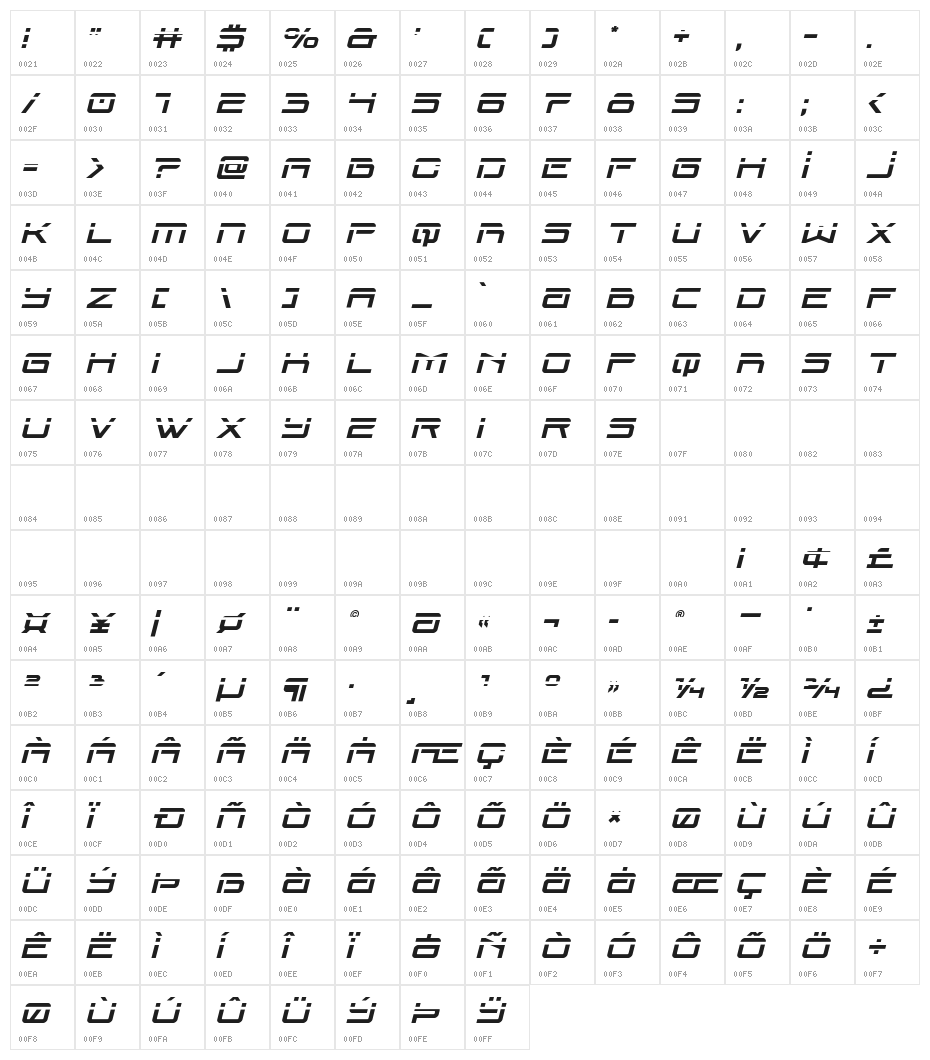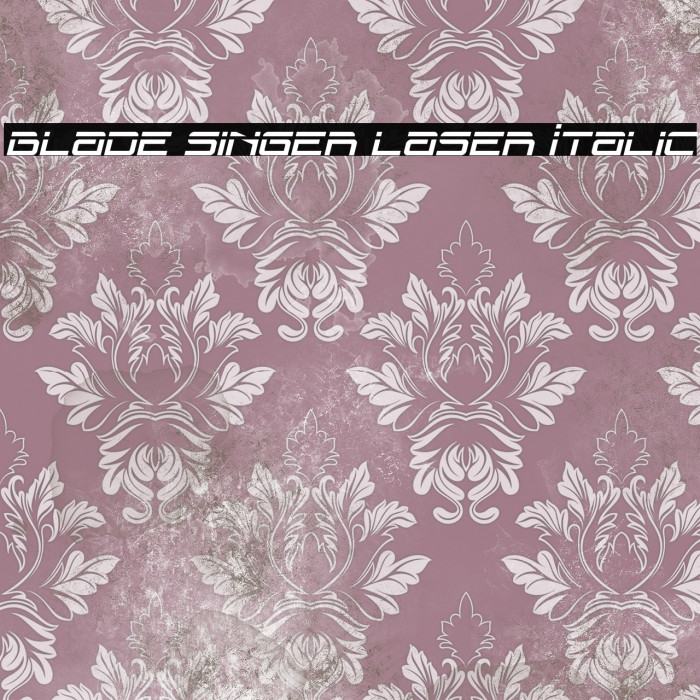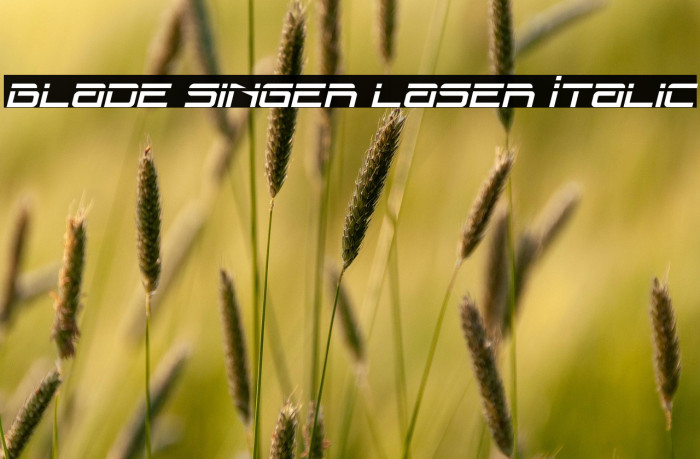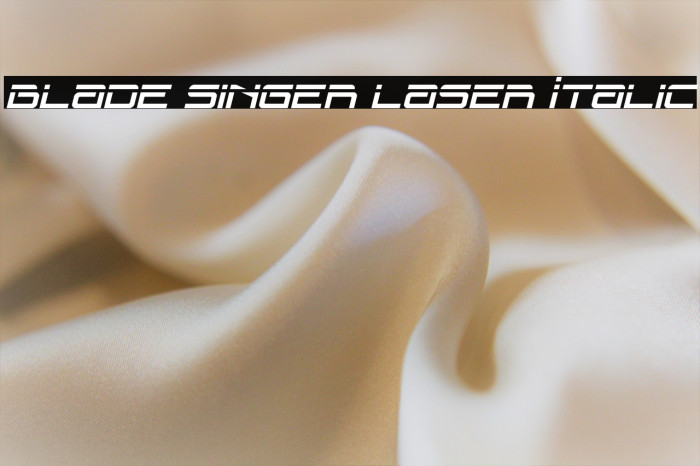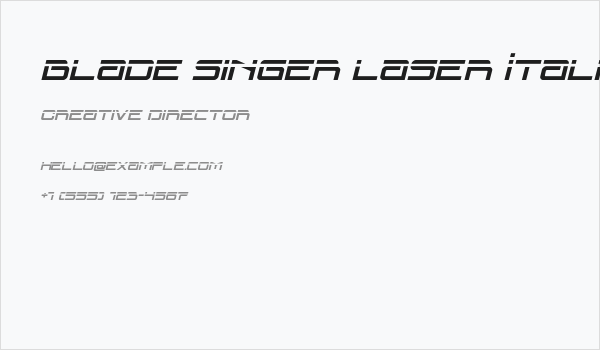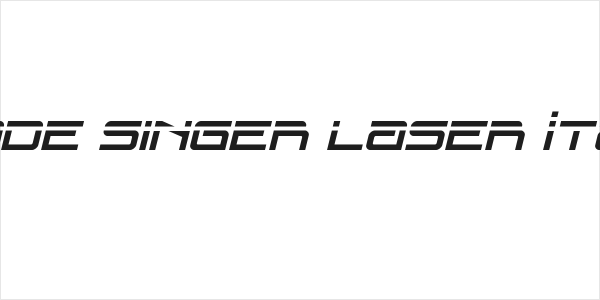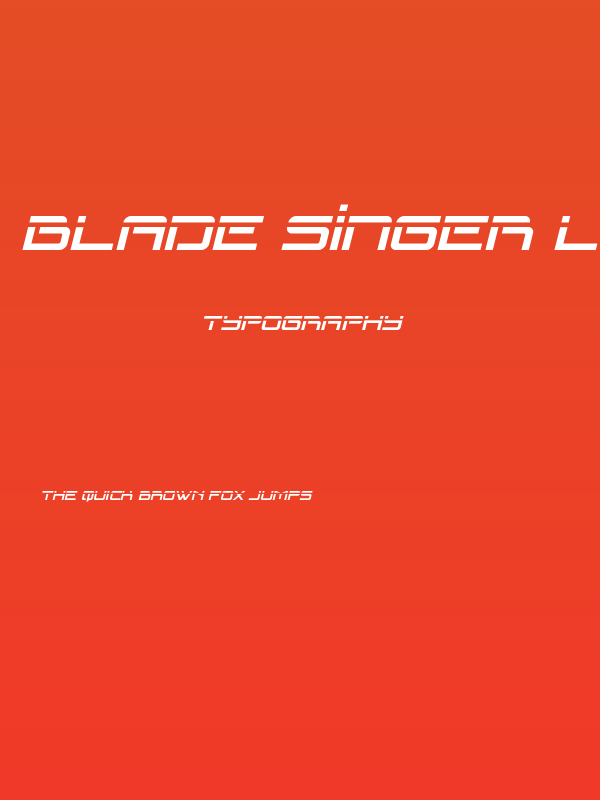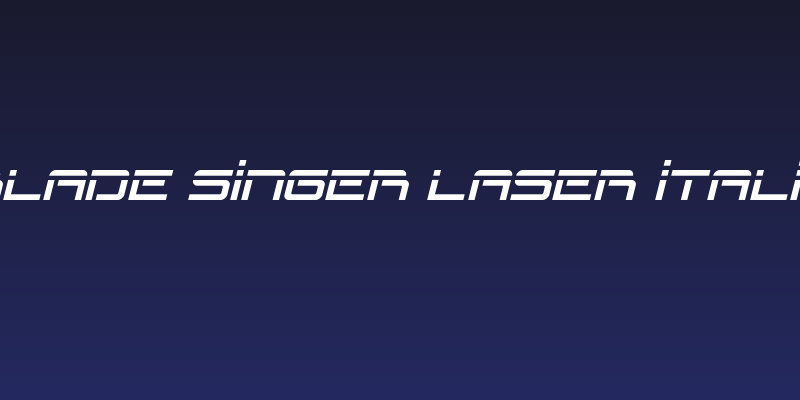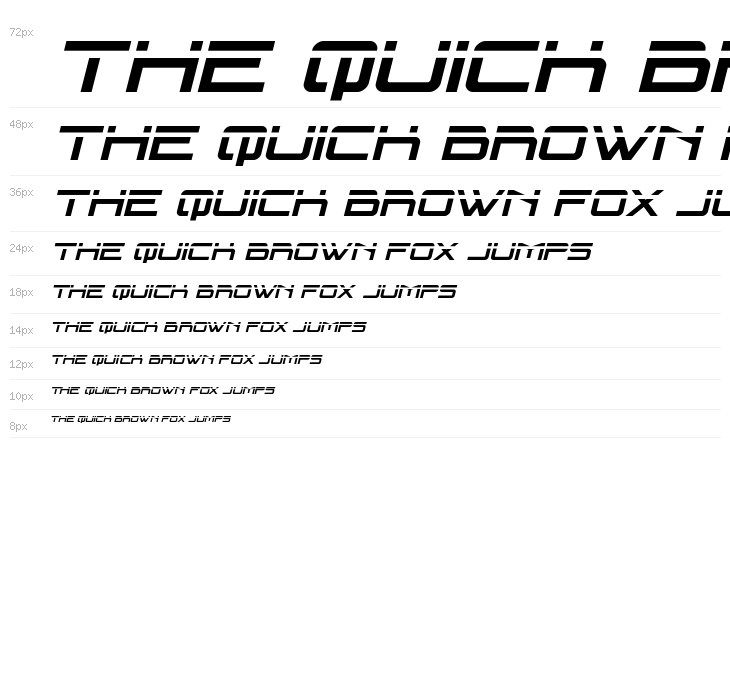
Blade Singer Laser Italic Font
Blade Singer Laser Italic Description
This font exhibits a futuristic and dynamic style, characterized by its sharp angles and sleek lines. The italicized nature of the characters adds a sense of motion and speed, making it ideal for modern and tech-oriented designs. The uppercase and lowercase letters maintain a consistent geometric structure, while the numerals and special characters integrate seamlessly with the overall aesthetic. The font's design is reminiscent of digital displays or sci-fi themes, with a distinct emphasis on angularity and precision.